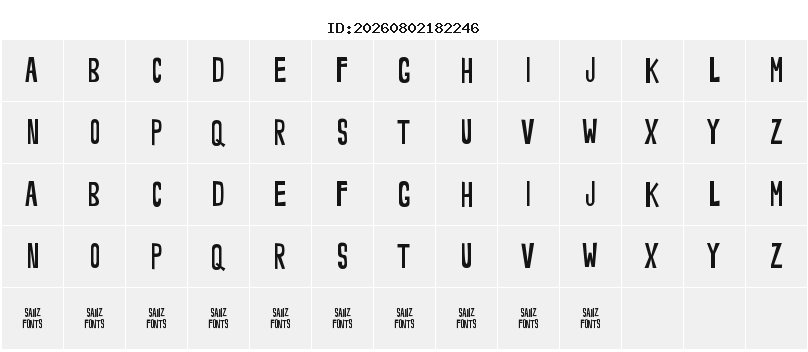
Noveey Preview
• Font Name: Noveey
• Designer: Sanz d'Cloudz a.k.a Ihsan
About Noveey.ttf
Noveey.ttf is a modern, elegant sans-serif font designed for ultimate readability and visual harmony. Perfect for branding, headlines, web design, and print materials.